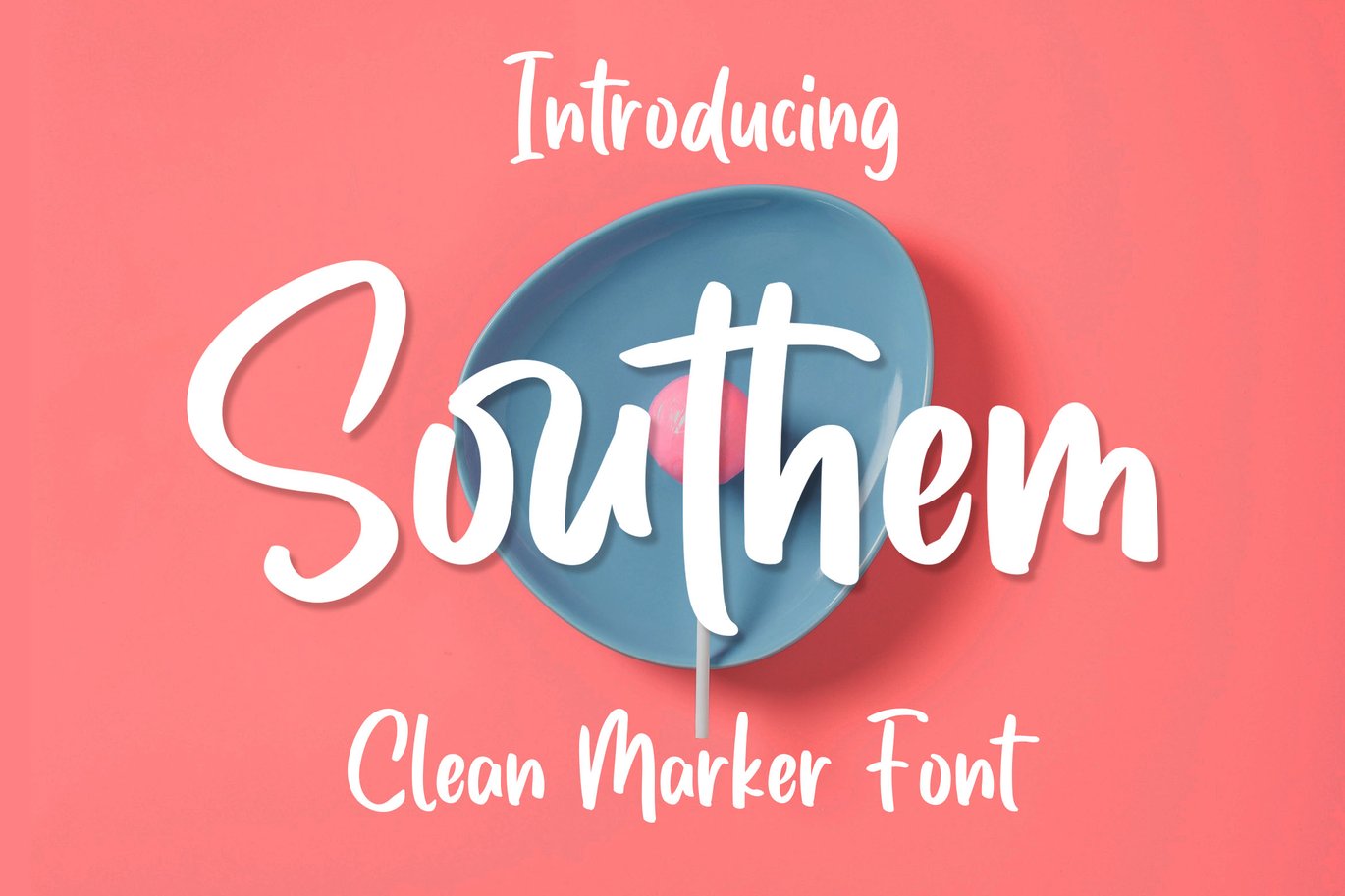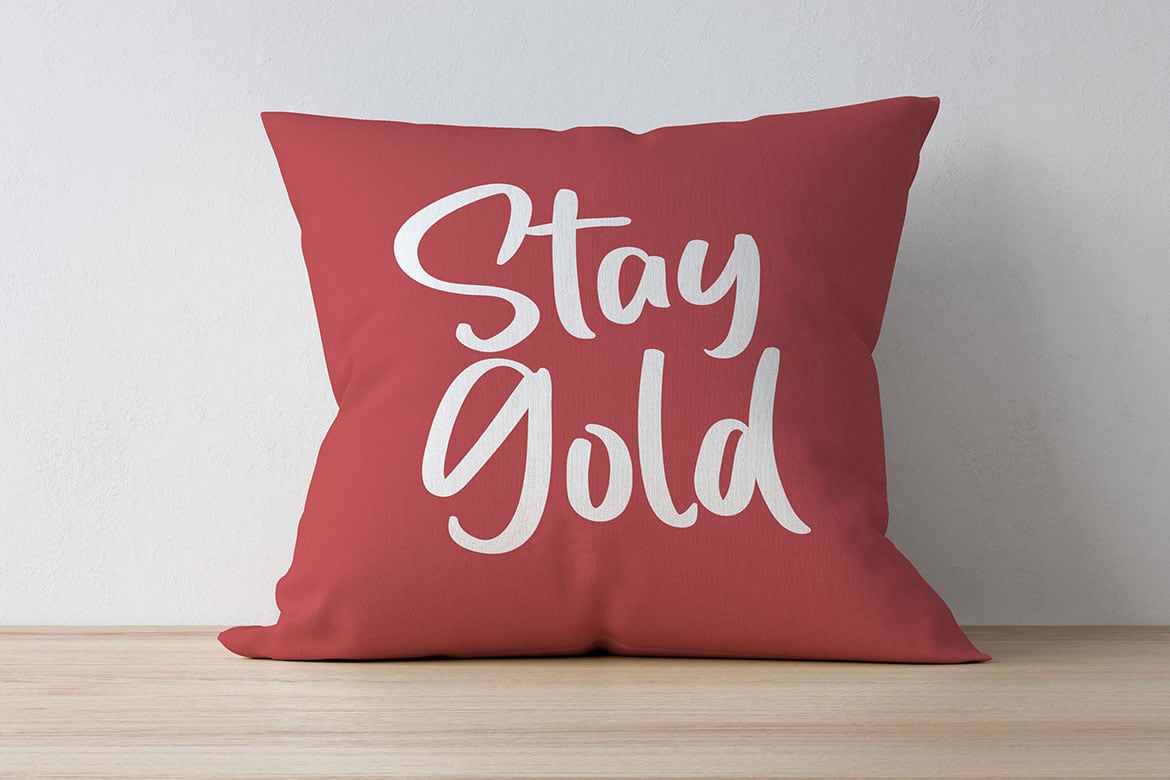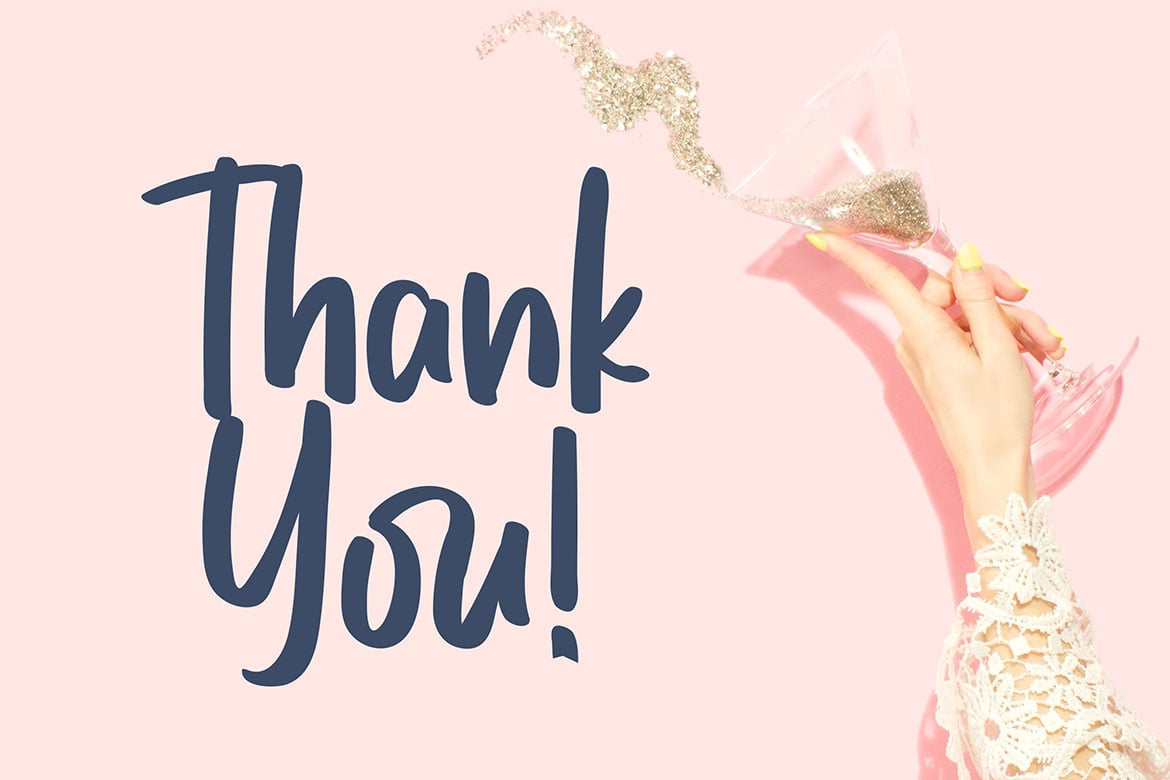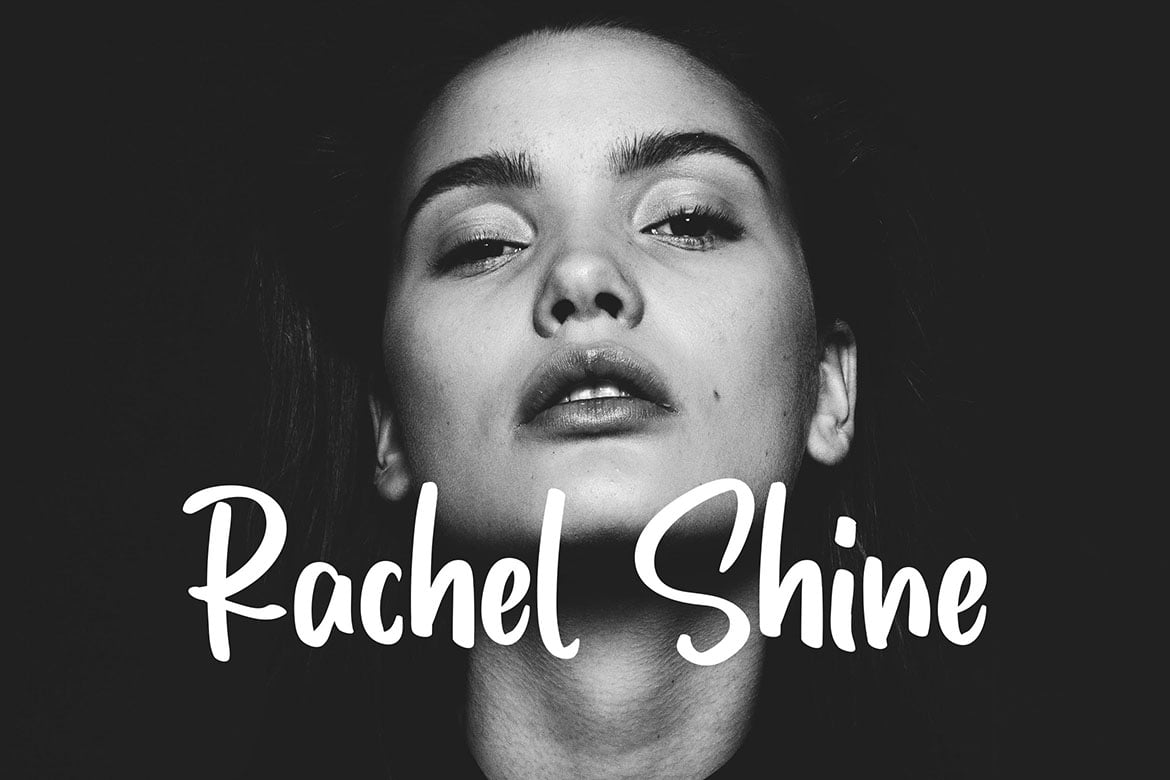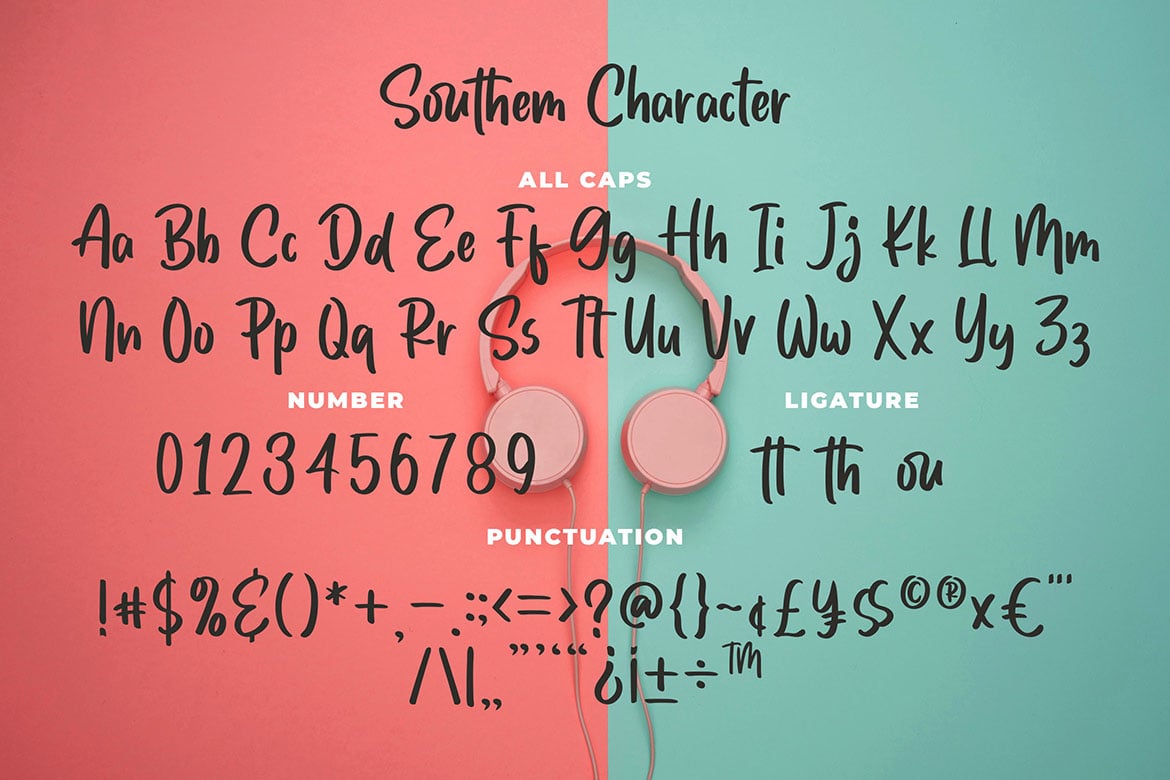
Southem – Clean Marker Font
Introducing of our new product the name is Southem Clean Marker Font. Southem made with markers this font is a fun theme very good for signature, poster, fashion, kids poster, flyer childrenbook, cartoon, comic etc
MULTILINGUAL ACCENT :
ŽžŠŒšŸÀÁÂÃÄÅÆÇÈÉÊËÌÍÎÏÐŁÑÒÓÔÕÖØÙÚÛÜÝßàáâãäåæçèéêëìíîïłñòóôõöøùúûüýÿ